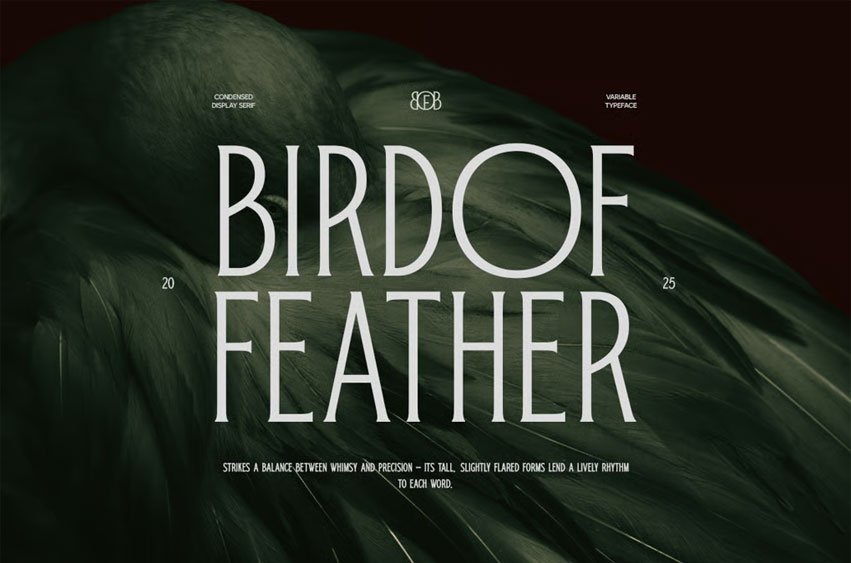
Bird Of Feather Font is a refined serif typeface that marries timeless elegance with contemporary finesse. Designed with carefully sculpted serifs, balanced proportions, and a hint of charm, this font speaks with sophistication and clarity across a wide range of creative applications.
Its graceful curves and moderate contrast make it a versatile choice for editorial layouts, branding, book covers, logos, and luxury packaging. Whether used in headlines or long-form text, TBJ Bird of Feather brings a unique voice — dignified, yet expressive.
This typeface blends the classic roots of serif typography with a modern design sensibility, making it equally at home in print and digital environments. Crafted for designers who value detail, character, and visual storytelling, TBJ Bird of Feather is more than just a font — it’s a typographic experience.
We believe great type starts with intention. TBJ Bird of Feather is built to elevate your message with poise and personality.